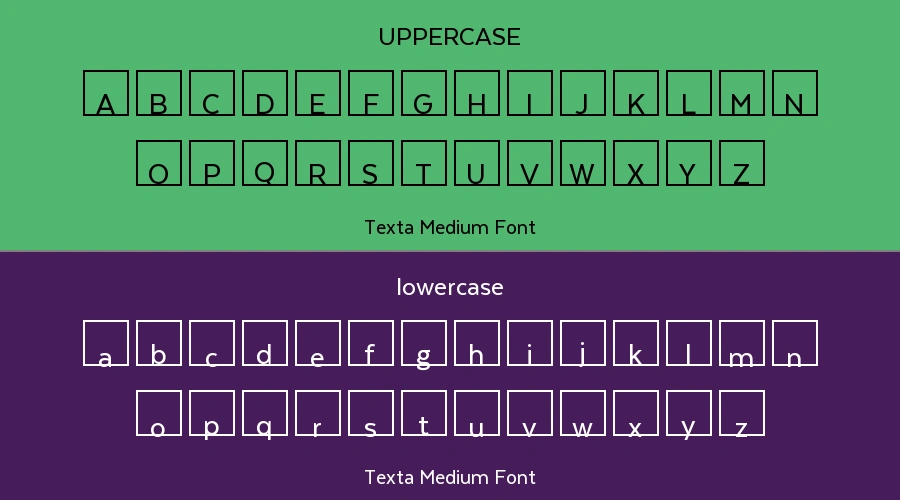
About Texta Medium Font
When typographic excellence matters most, Texta Medium Font delivers through its thoughtful blend of consistent rhythm and textural consistency. Specially crafted for print publications, it offers the distinctiveness and cultural relevance required for sophisticated design work. Every detail serves a purpose.
The character set showcases thoughtful details like systematic design alongside functional dingbat elements. This proves especially valuable in sidebars, where overlay performance directly influences results. Particular attention was paid to beak formation and technical tradition during development.